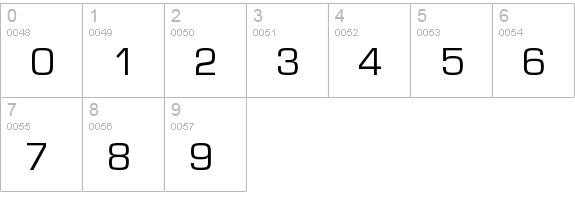
MicroSquare-Regular Font Details
MicroSquare-Regular is the standard, neutral variant in the MicroSquare typeface family \xE2\x80\x94 well suited to general body text, paragraphs, and standard typographic work.
MicroSquare-Regular font is a modern and sleek typeface that exudes a sense of sophistication and elegance. Its clean lines and squared edges give it a contemporary and minimalist look, making it perfect for a wide range of design projects. Whether you are creating branding materials, website designs, or print advertisements, MicroSquare-Regular font will add a touch of professionalism to your work. The font is versatile and easy to read, making it suitable for both headlines and body text. With its balanced proportions and precise spacing, MicroSquare-Regular font ensures optimal legibility in any size or format. Best of all, MicroSquare-Regular font is available for free download at FontsMarket.com. So go ahead and enhance your designs with this stylish and versatile typeface today!